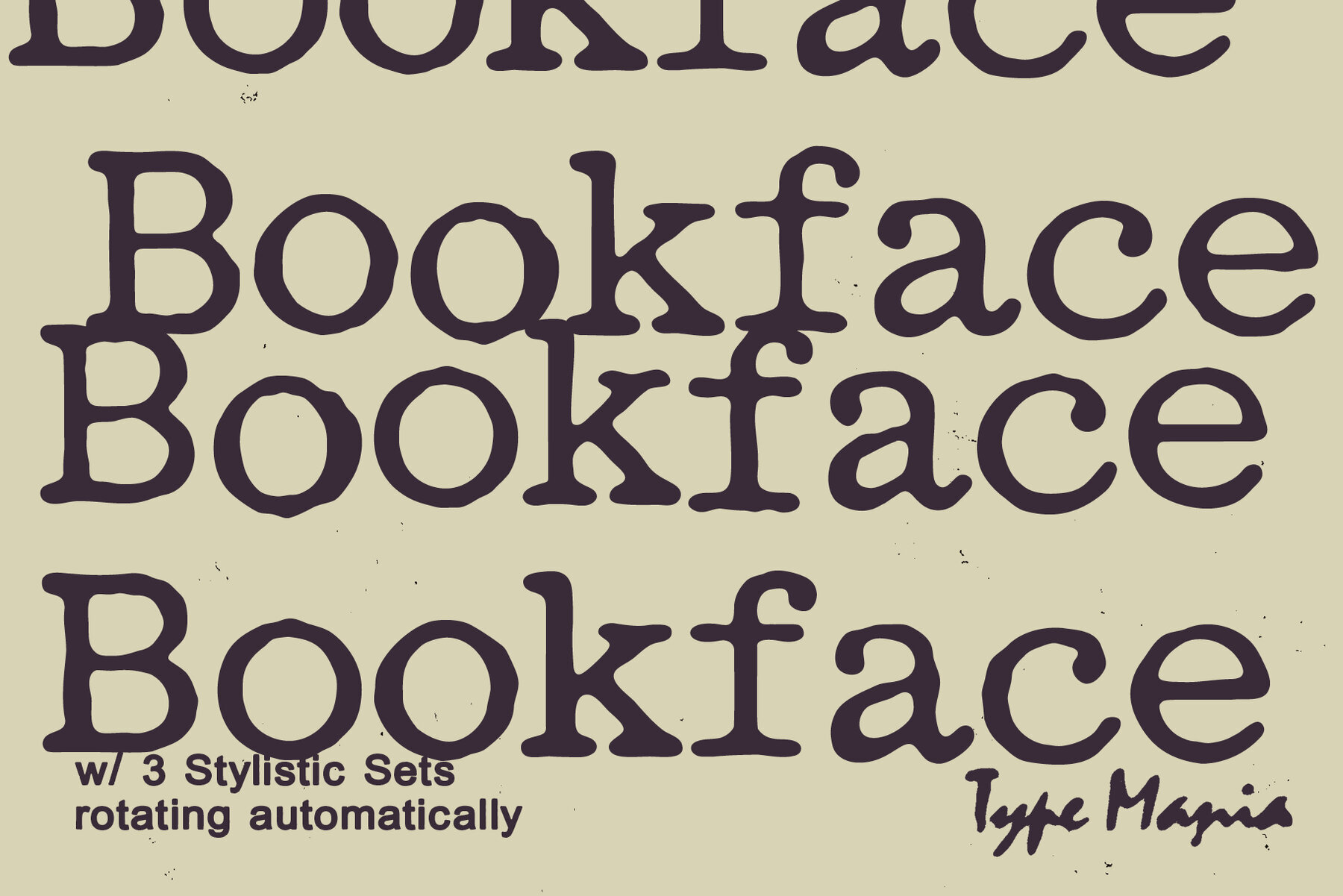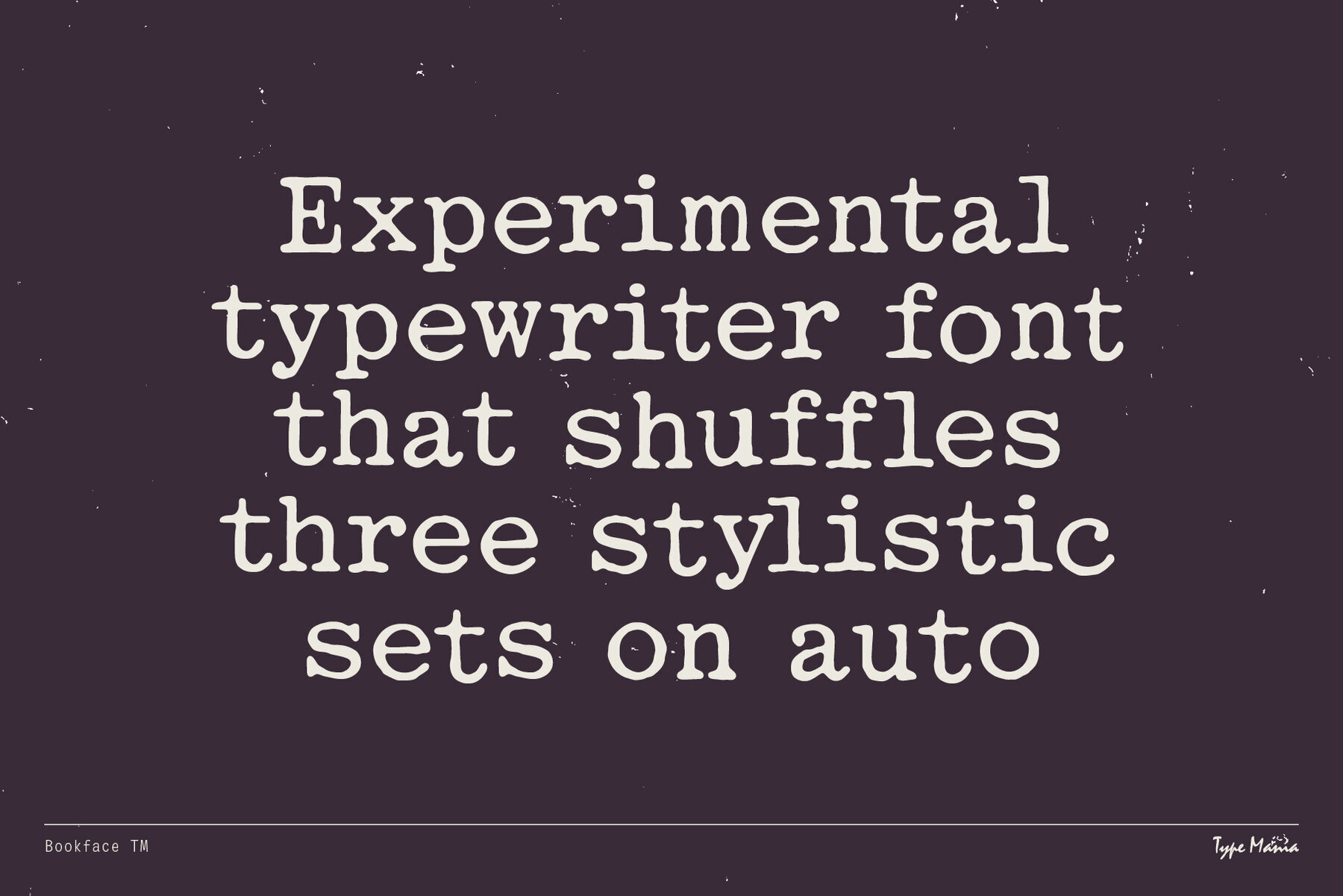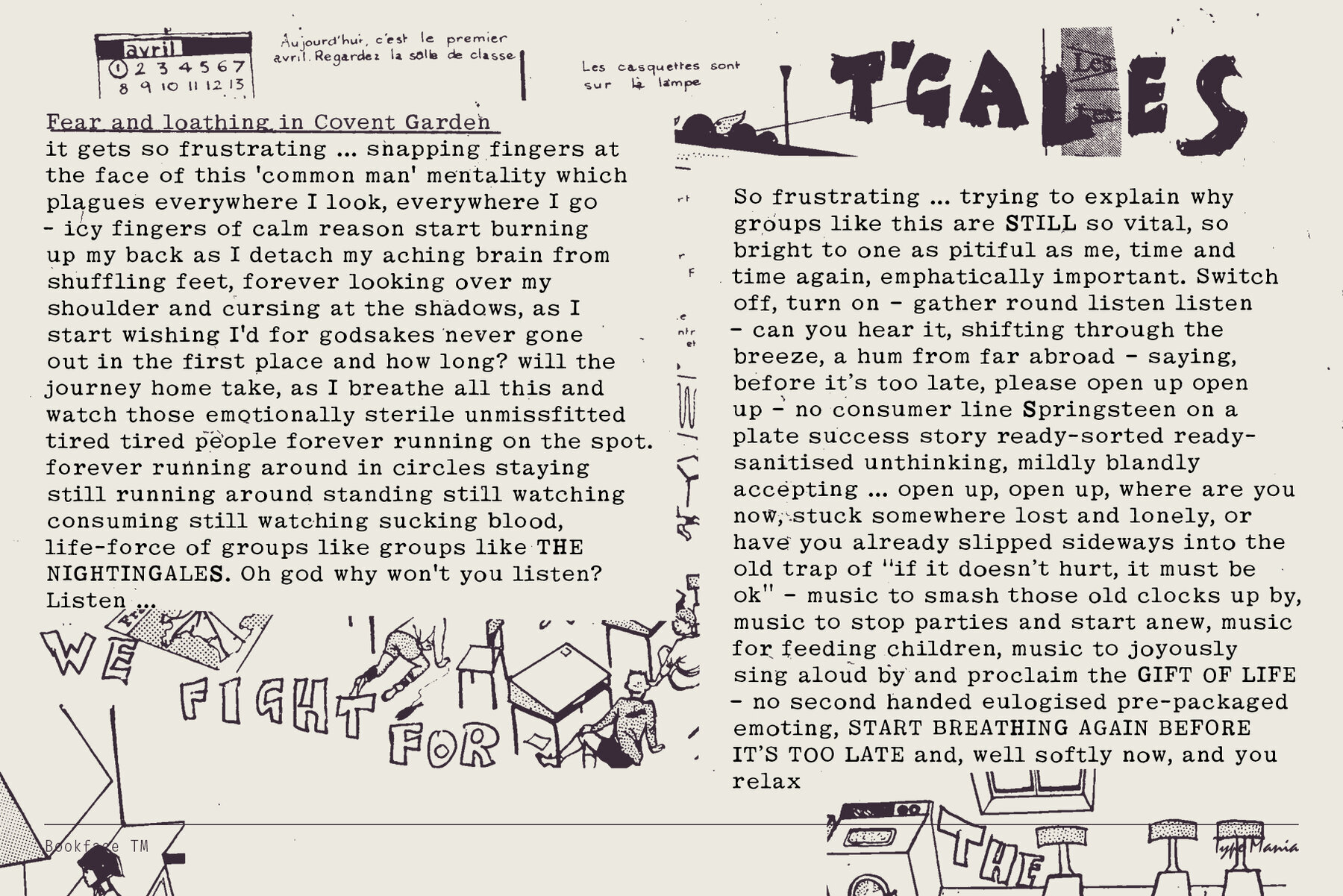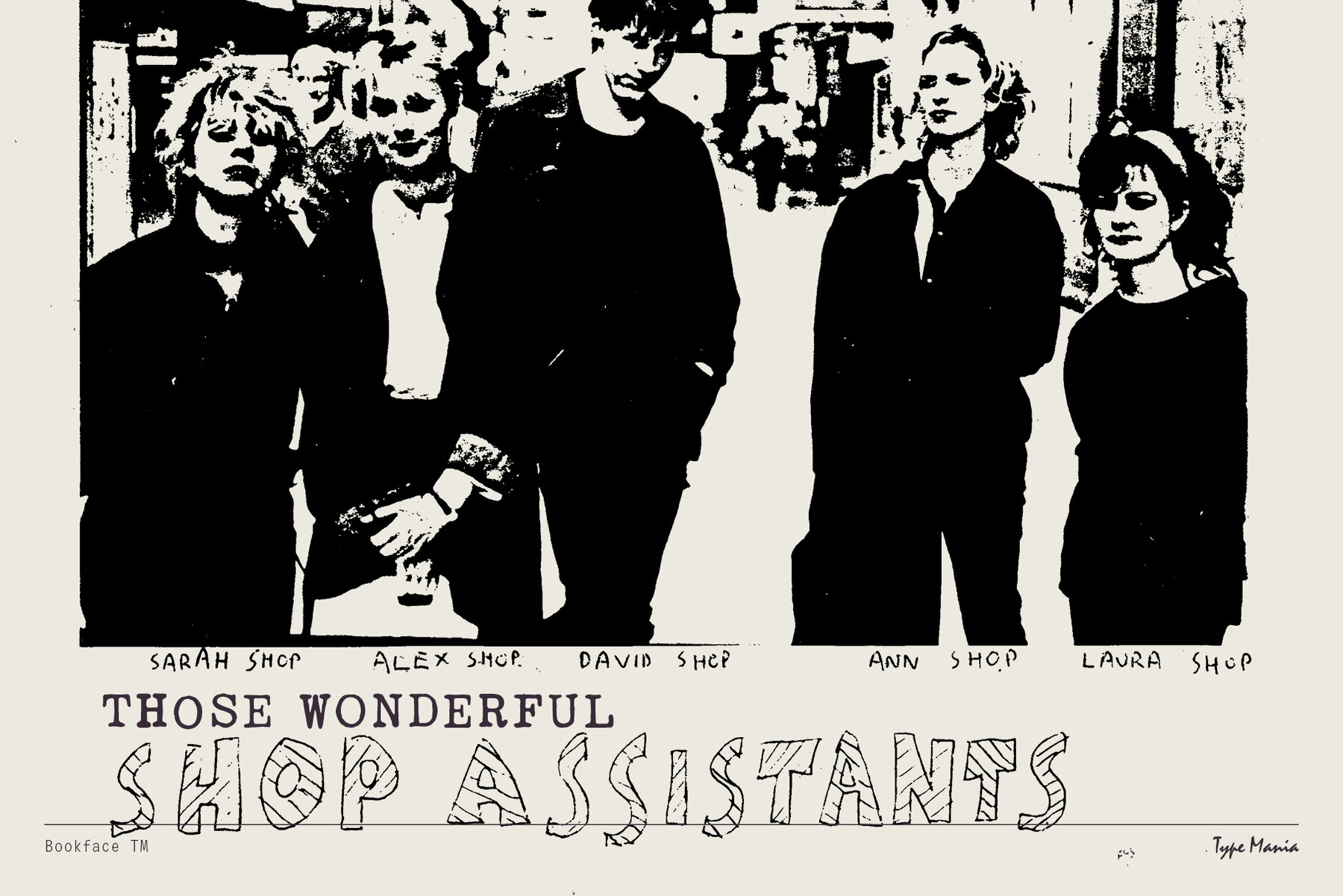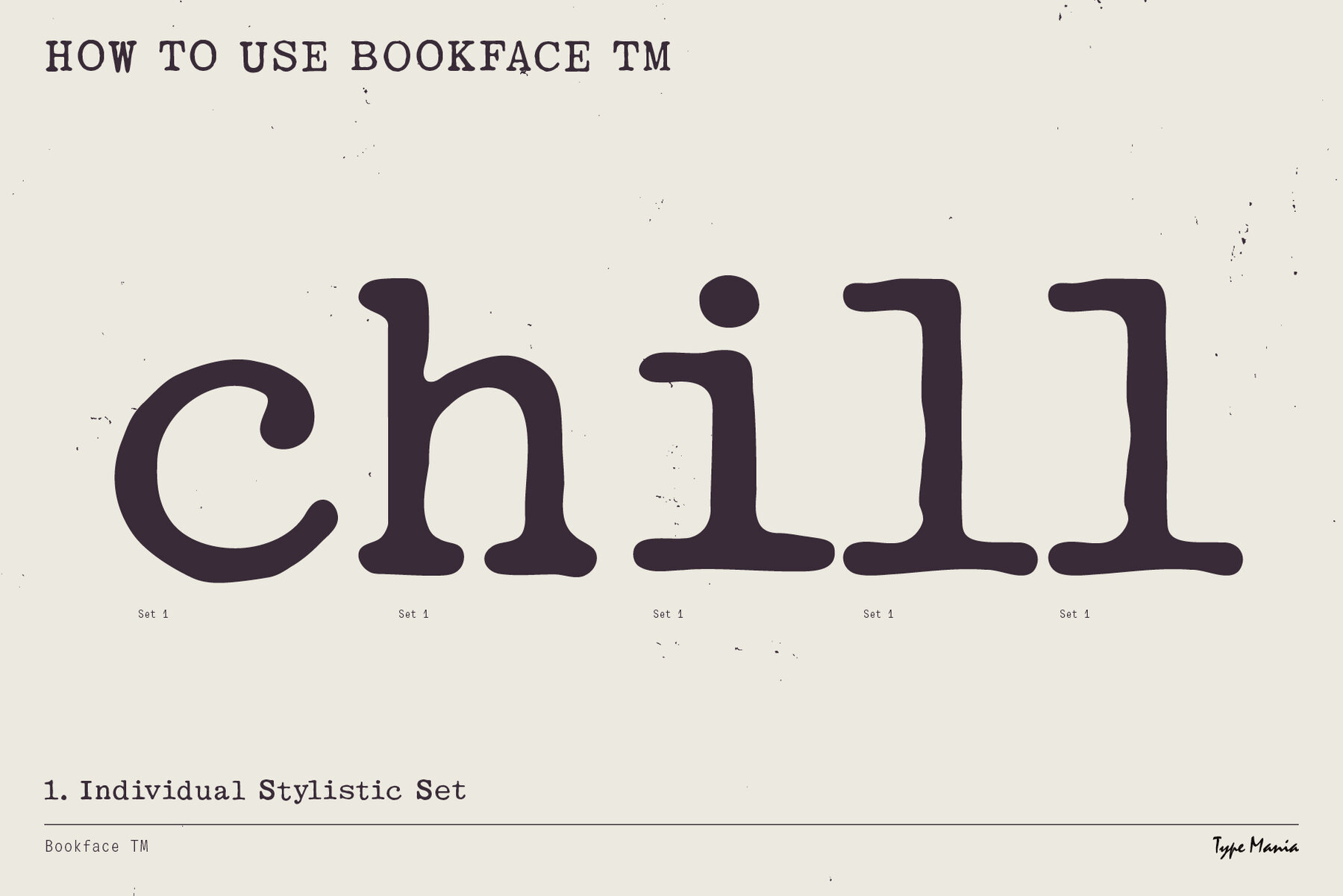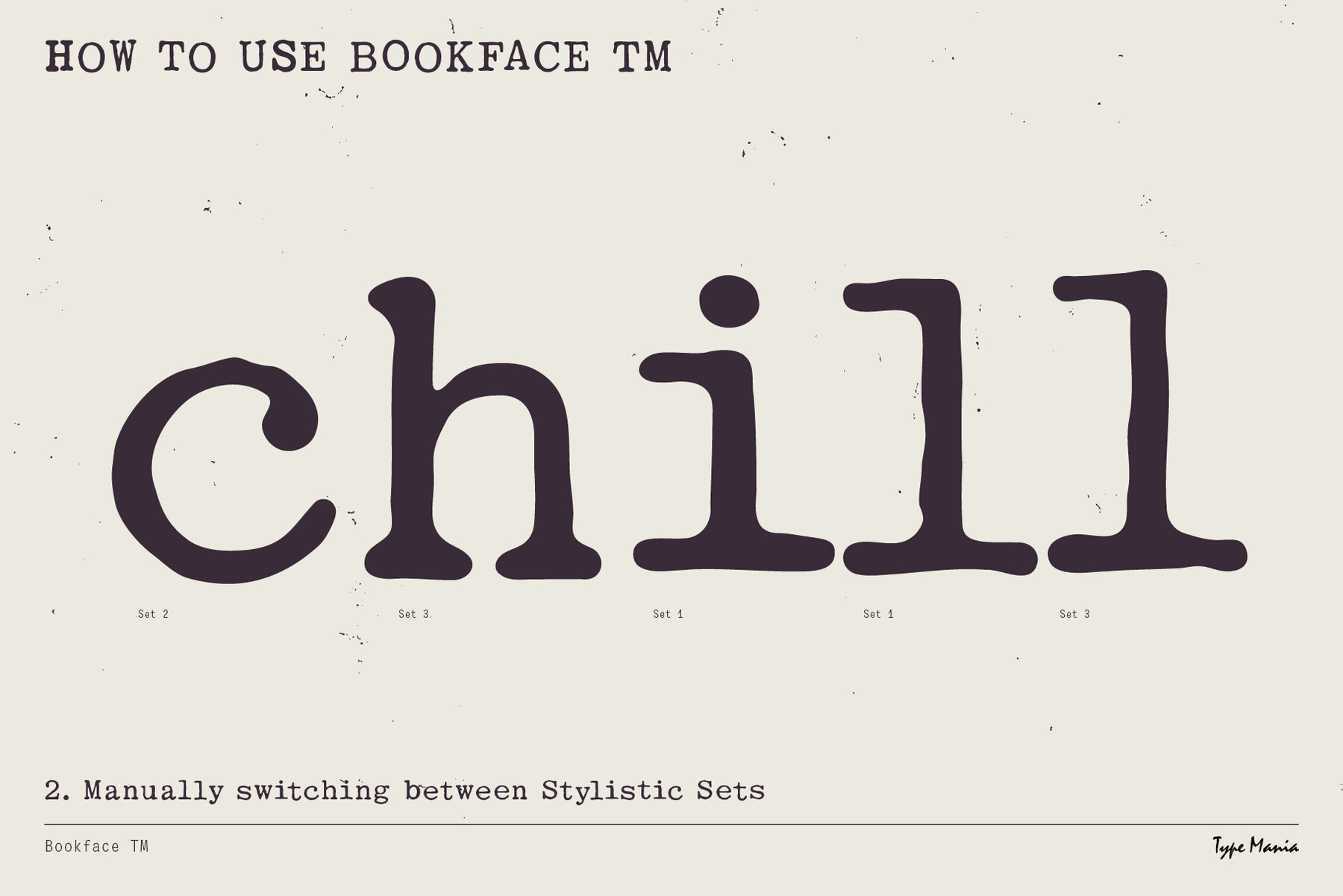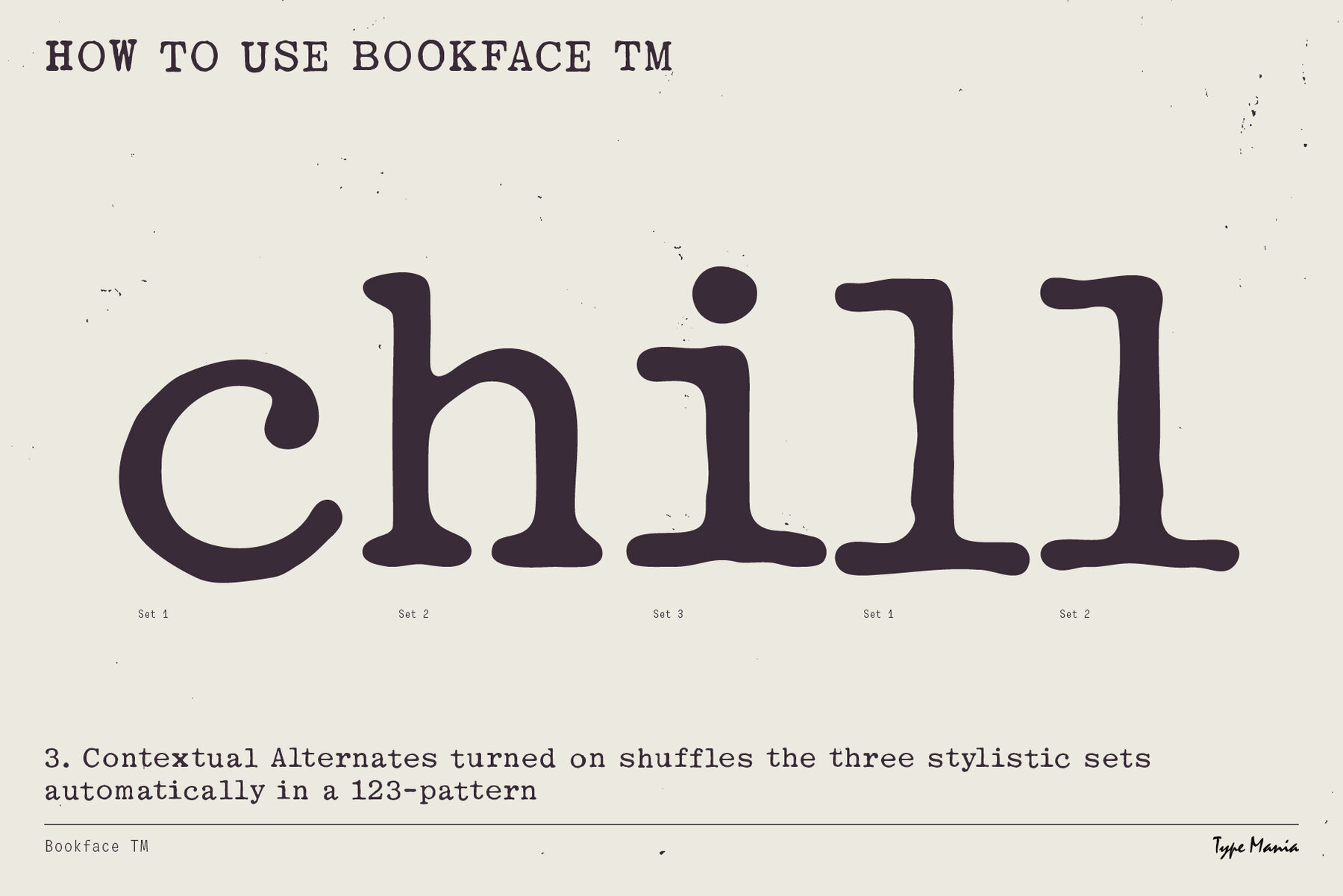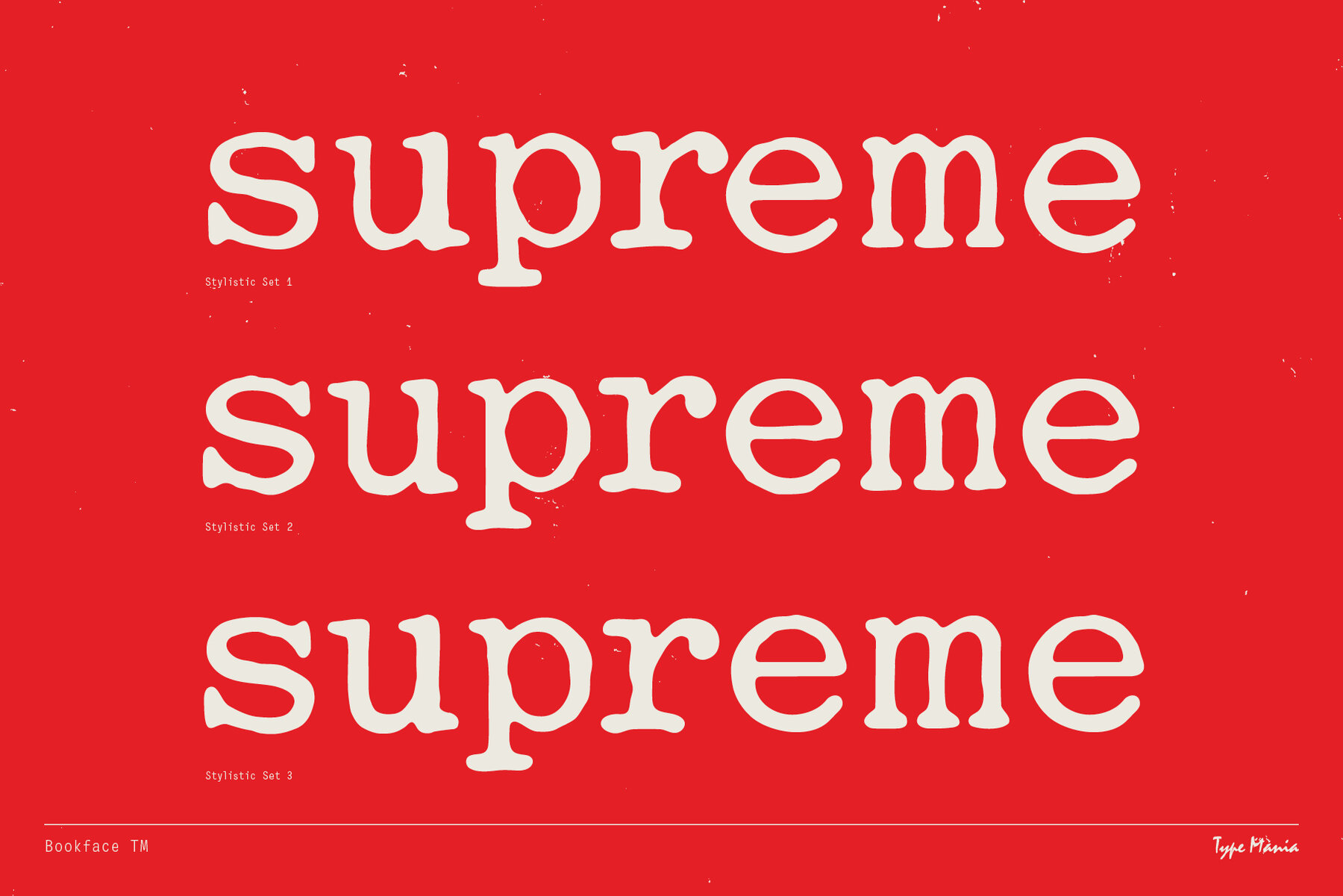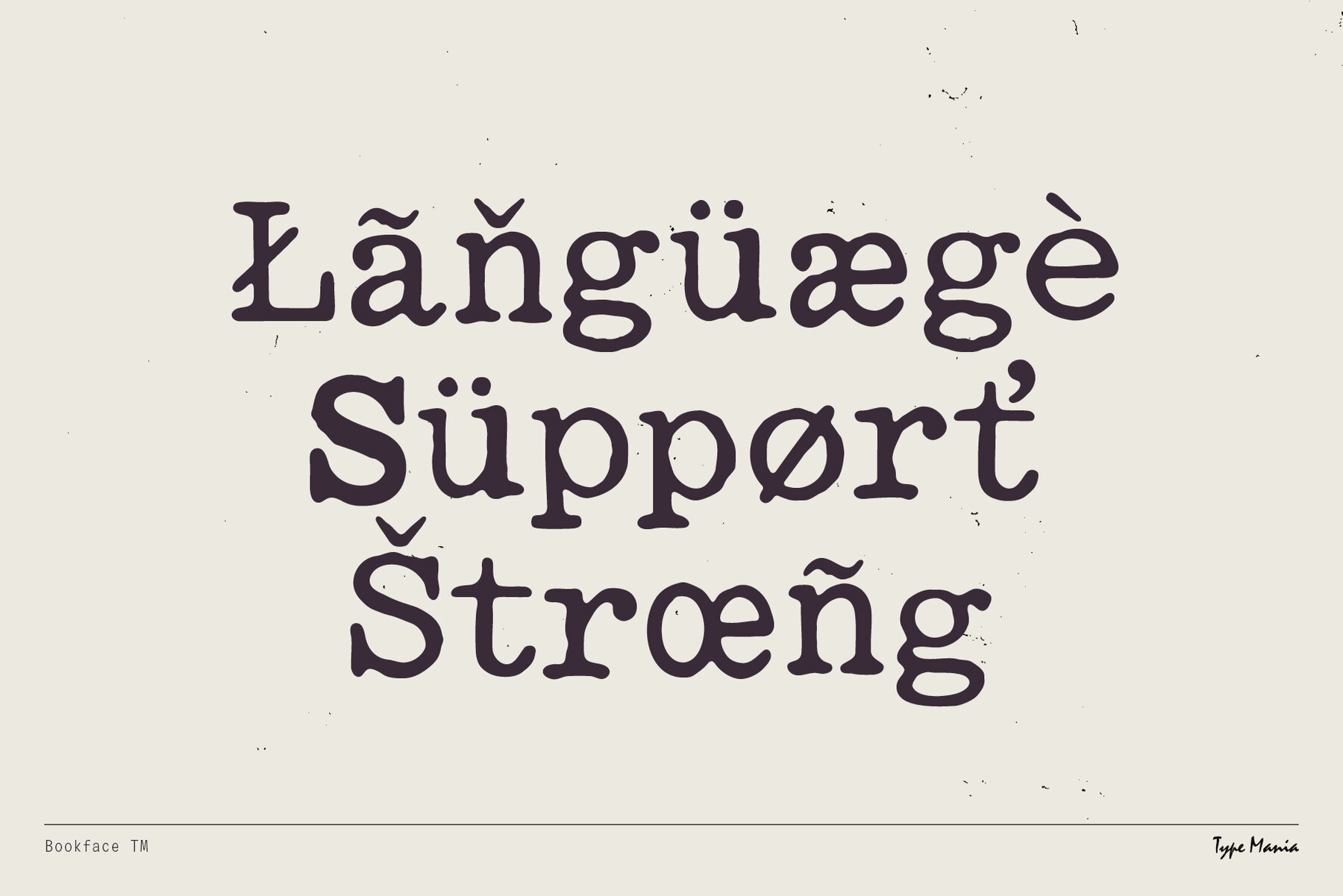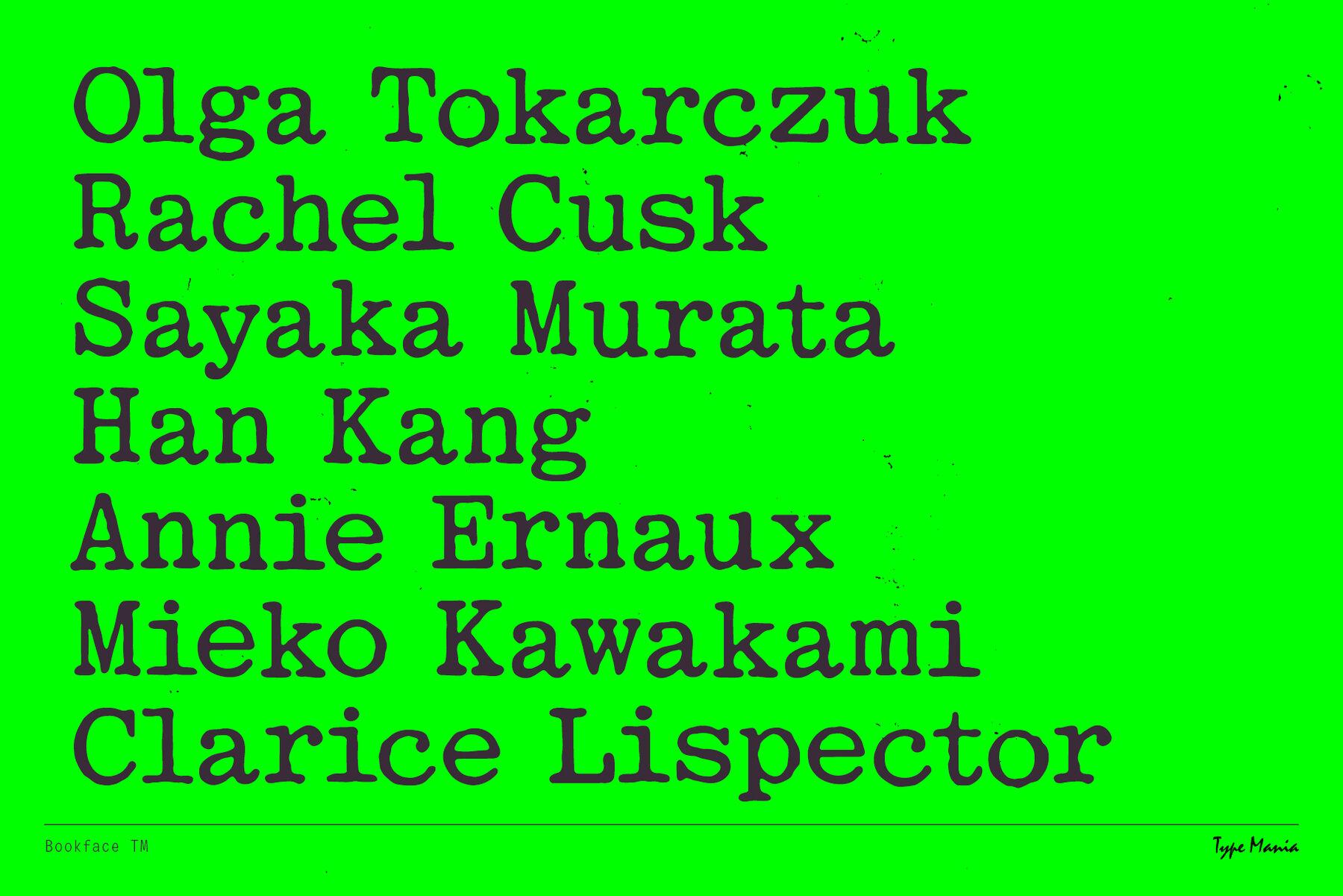
Bookface TM Font
Bookface TM Regular
Bookface TM is an Egyptienne slab typeface, offering a dynamic touch with its three stylistic sets. When contextual alternates are activated, the letters rotate automatically, creating a vibrant texture that suits both paper and digital interfaces.Bookface TM: Dynamic Egyptienne Slab Typeface